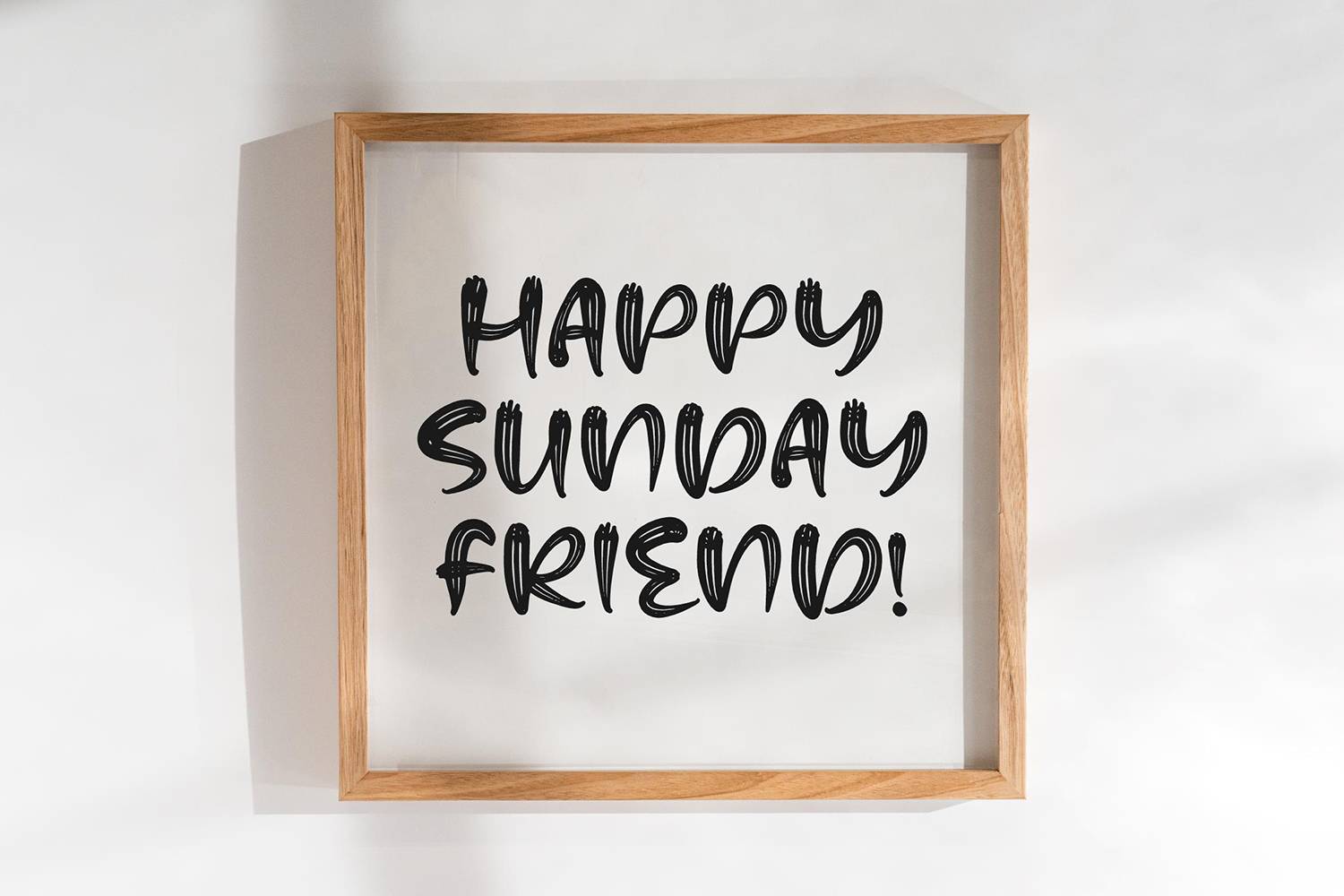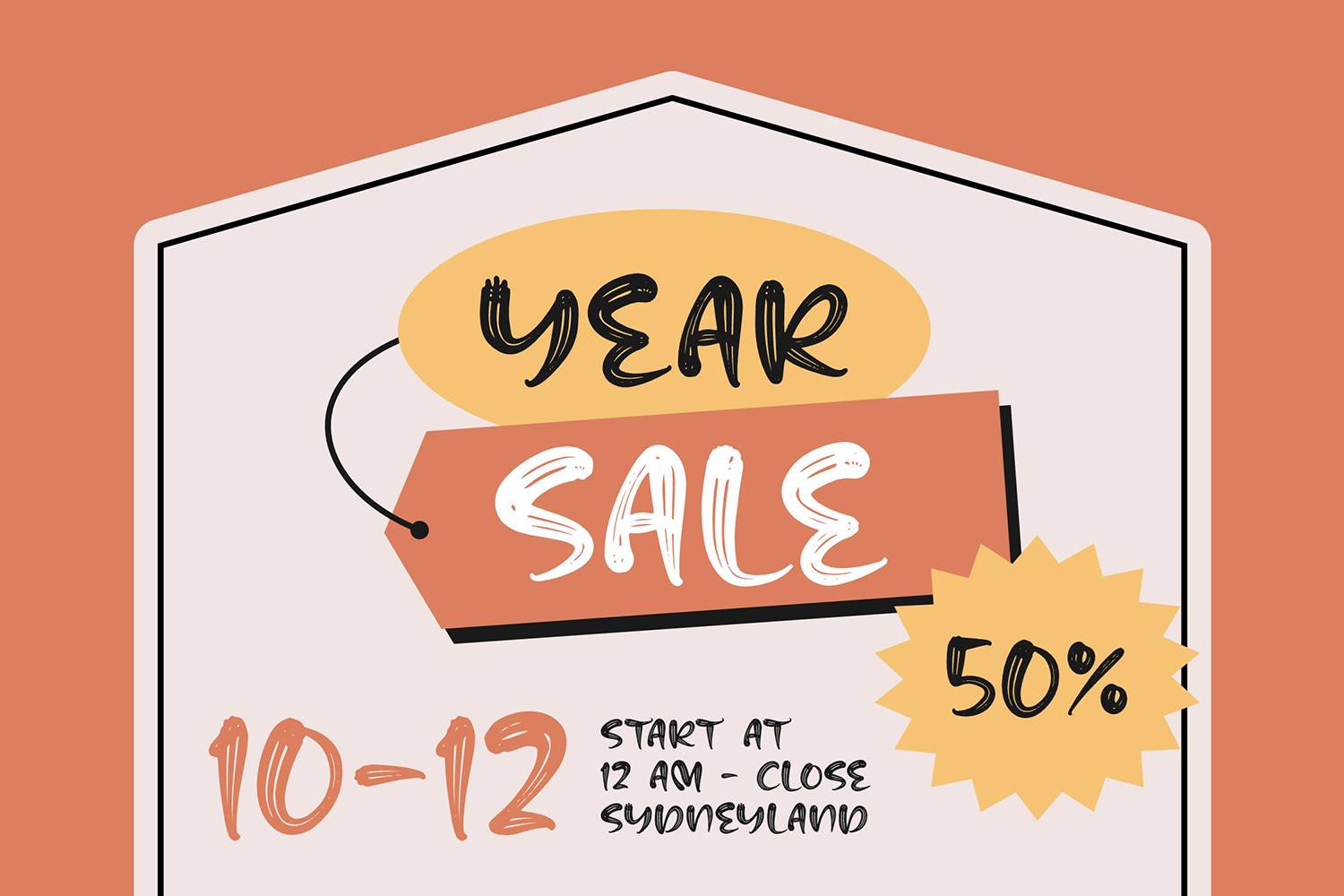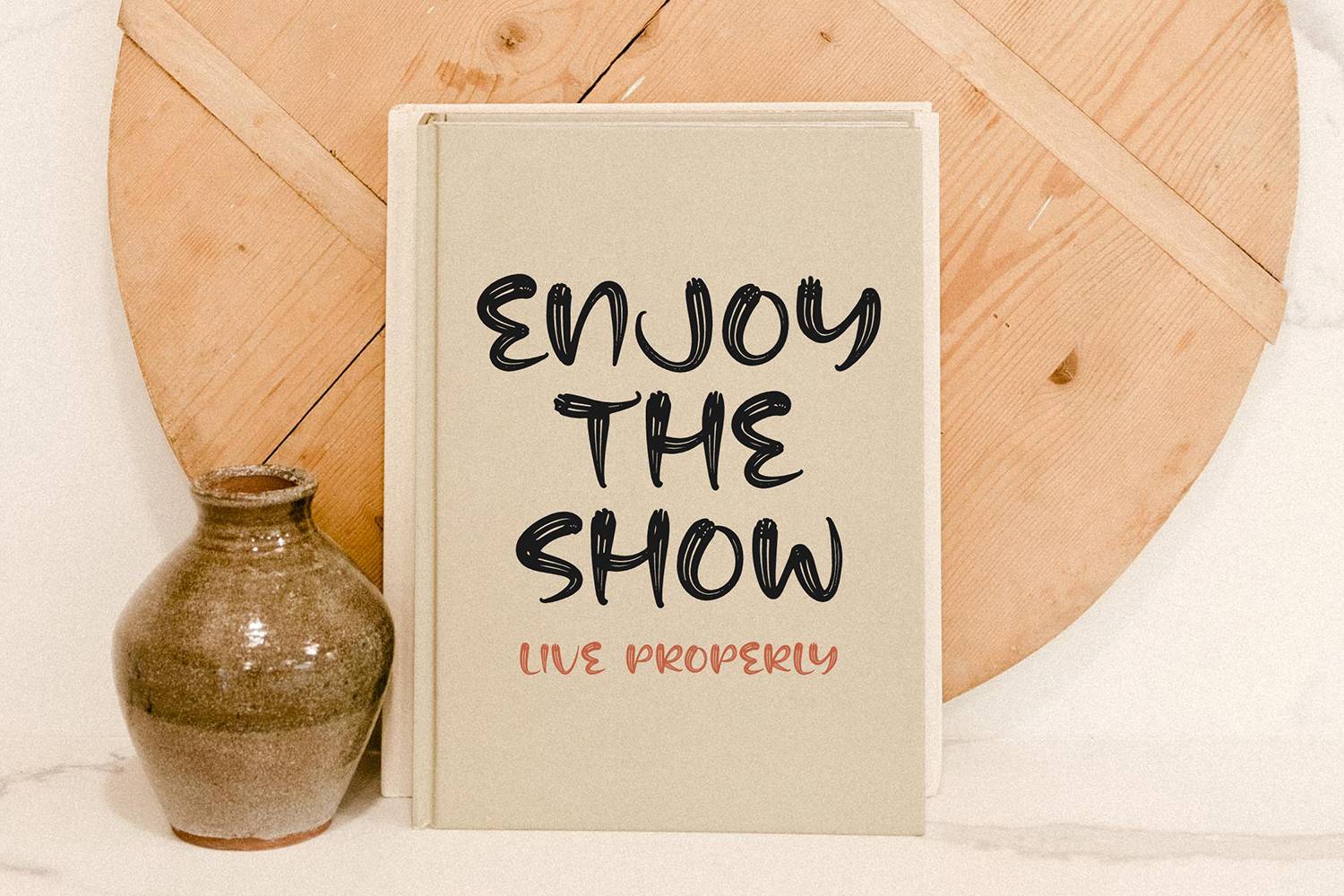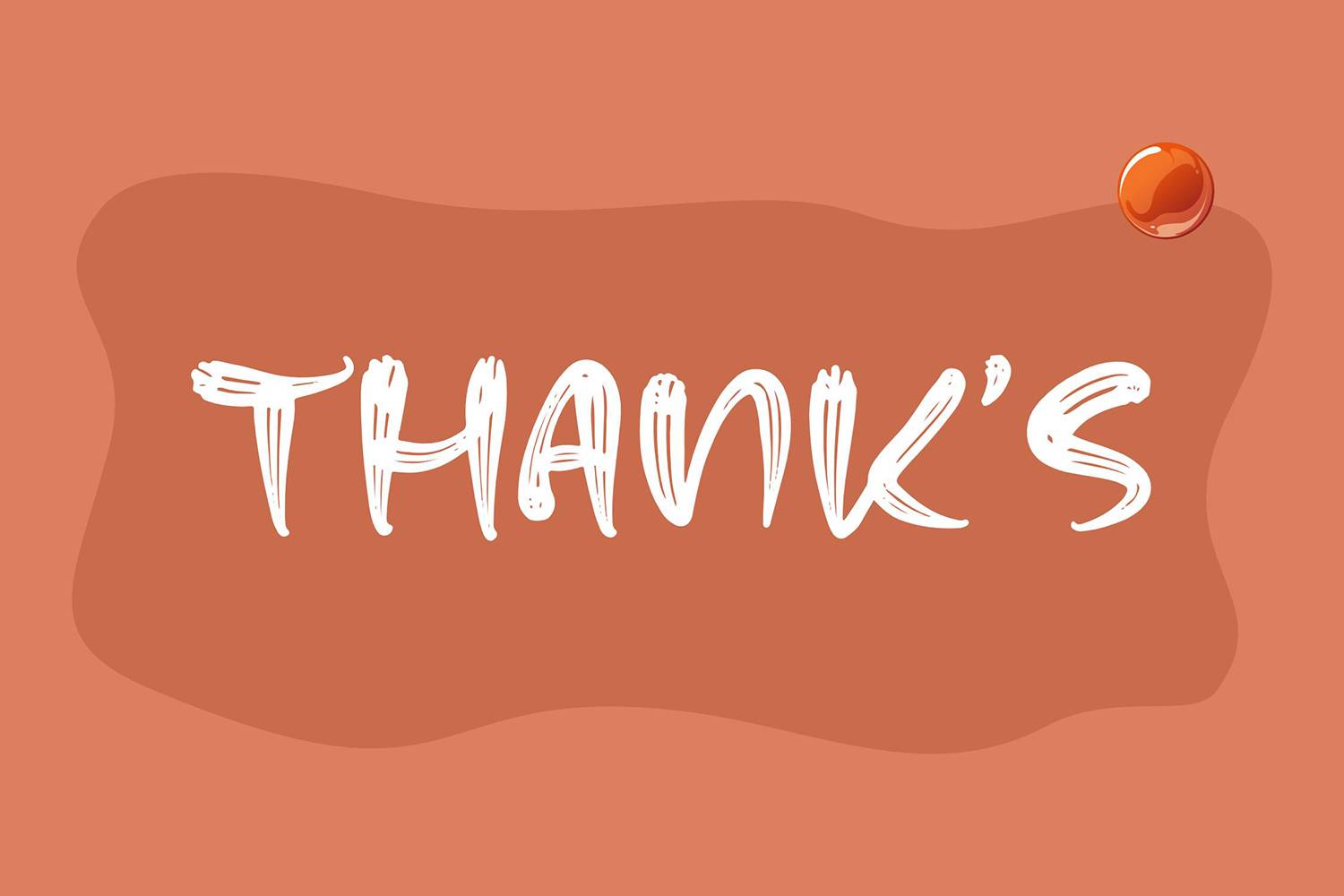
Display Marble is a playful, hand-drawn sans serif font characterized by its irregular, brush-like strokes that create a lively and informal feel. With its casual, slightly wobbly letterforms and whimsical charm, this font works best for creative projects, children’s materials, and branding that aims to convey friendliness and originality. Its unique style makes it ideal for eye-catching headlines, logos, and packaging where a fun, artistic touch is desired.
Display Marble Font
About Display Marble Font